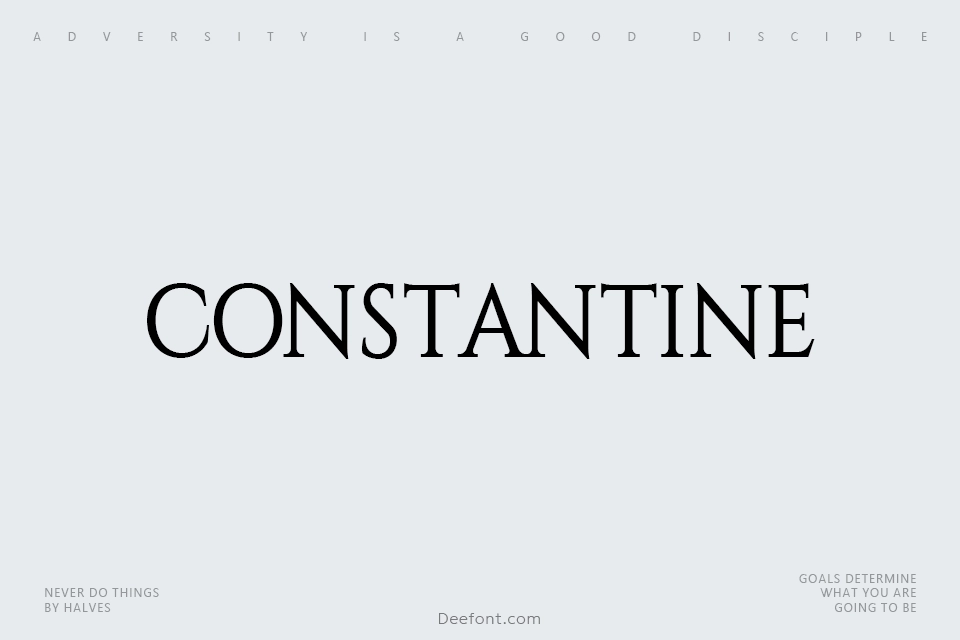
Constantine Font
Constantine Font is a Roman-style serif typeface inspired by Emperor Constantine the Great, the 4th-century ruler of the Roman Empire. This elegant typeface is rooted in the Cinzel font family and features sophisticated serif characteristics with pronounced serifs and refined stroke variations. Constantine Font includes comprehensive Cyrillic and Serbian language support, along with the Chi Rho symbol, making it ideal for historical, formal, and luxurious design applications. The font’s classic aesthetic and authoritative bearing make it perfect for formal documents, branding, invitations, and any project requiring a touch of timeless elegance and historical significance.